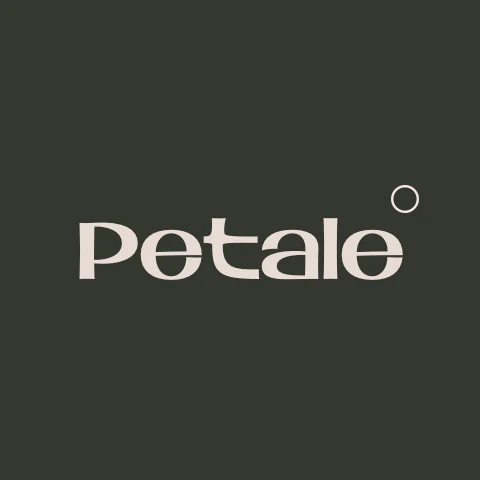
Petale - Feminine Brutalist Typeface
Works well with elegant and strict serif fonts. Also try to experiment with script fonts. I used my Stormy Youth font: https://www.myfonts.com/fonts/lomohiber/stormy-youth and Bodoni 72 Smallcaps Language support: Extended Latin, Cyrillic